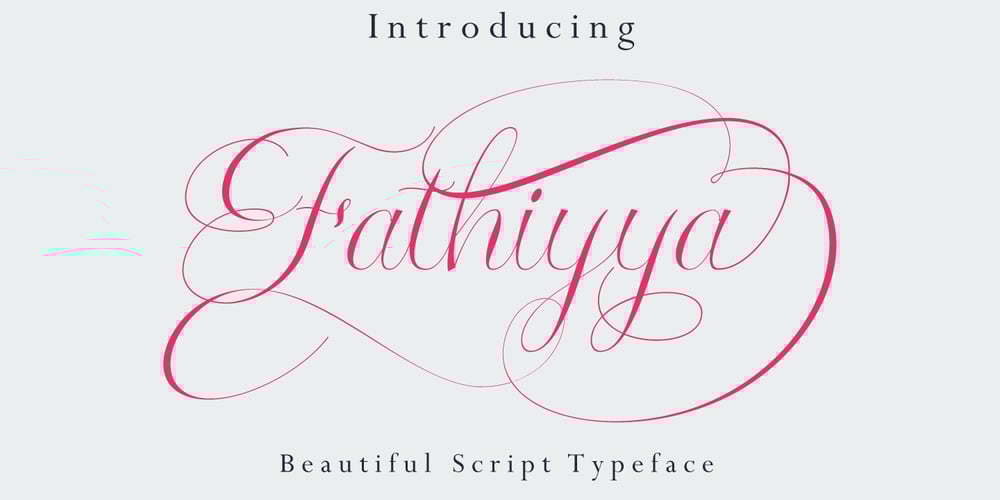
Fathiyya Script
Fathiyya Script font
Fathiyya Script Font Family was designed by Riska Kurniawan and published by BlackLotus. Fathiyya Script contains 1 styles and family package options. Fathiyya is a script font that is perfect for works that require a stylistic, natural, and elegant feel. Each shape in this font is made differently without duplicates for each character which creates a beautiful natural impression. This font is very suitable for use in various projects such as brochures, invitations, personal brands, and others.The Fathiyya script has many beautiful alternate styles and supports various languages. This font is PUA encoded which means you can access all of the glyphs and swashes with ease!